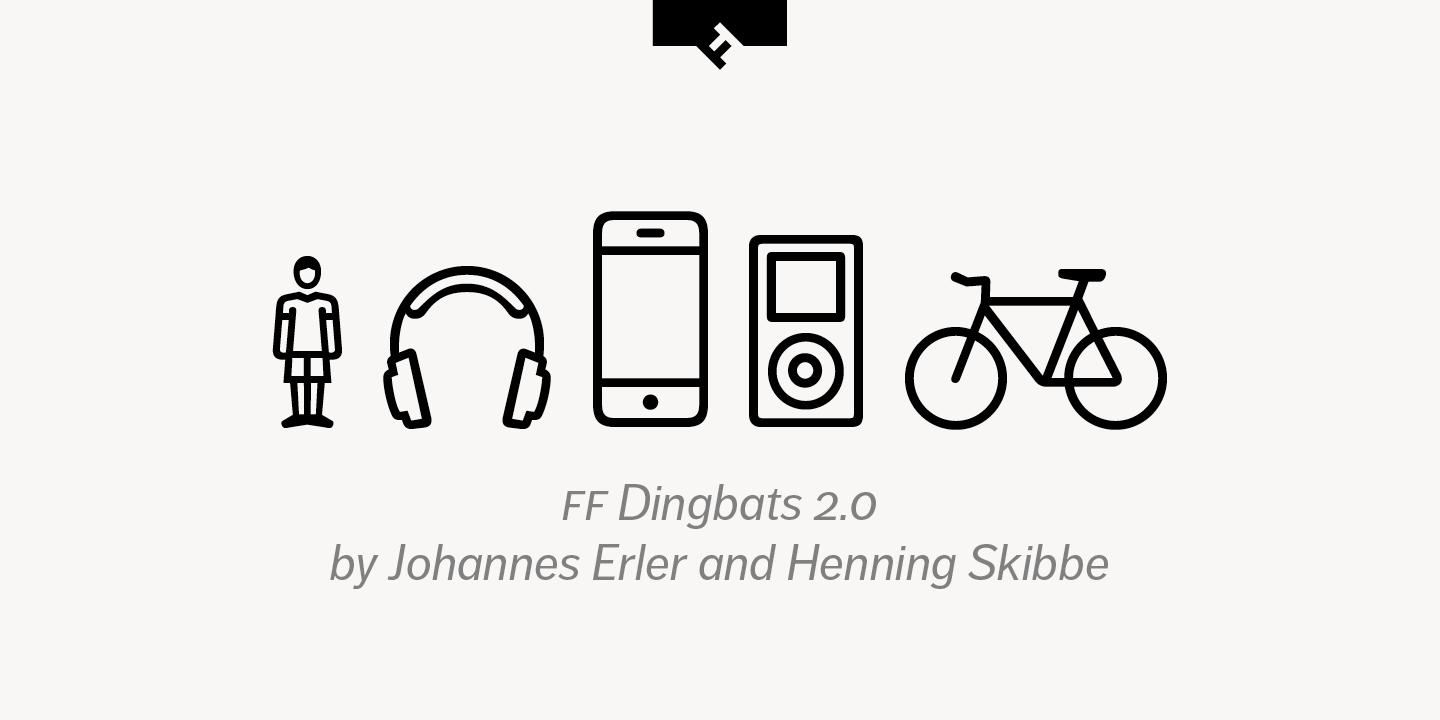
The FF Dingbats 2.0 Font is an incredibly versatile and powerful tool for a vast array of design applications where visual symbols and icons are needed. Imagine it providing clear and intuitive navigation icons for a modern website, adding engaging visual cues to infographics and presentations, or creating unique patterns and textures for graphic design projects. Its comprehensive library of symbols also makes it perfect for enhancing print materials like brochures and flyers, developing custom user interfaces, and even adding playful elements to digital greetings and social media graphics. This font is essential for designers looking to inject strong visual communication into their work.
What makes FF Dingbats 2.0 Font so exciting is its intelligent organization and expansive collection of universally recognized and highly usable symbols. Unlike random collections, this font is meticulously crafted with a focus on functionality and aesthetic consistency, allowing designers to quickly find the perfect icon for any context. Its scalable vector nature ensures that these symbols look crisp and clear at any size, from small navigational elements to large display graphics. This comprehensive and thoughtfully designed set provides a rich visual vocabulary, making it an indispensable asset for any creative endeavor.
The FF Dingbats 2.0 Font family is unique in that its "weights" and "styles" refer more to categories and variations of symbols rather than traditional typographic weights. You'll typically find an incredibly broad assortment of icons categorized logically, including arrows, user interface elements, communication symbols, weather icons, social media icons, and much more. This extensive classification allows designers to easily navigate and select the perfect visual element for their needs. Each symbol within the FF Dingbats 2.0 Font maintains a consistent design language, ensuring a cohesive and professional appearance across all your visual communications. Explore its vast potential today – FF Dingbats 2.0 Font Free Download is available now!